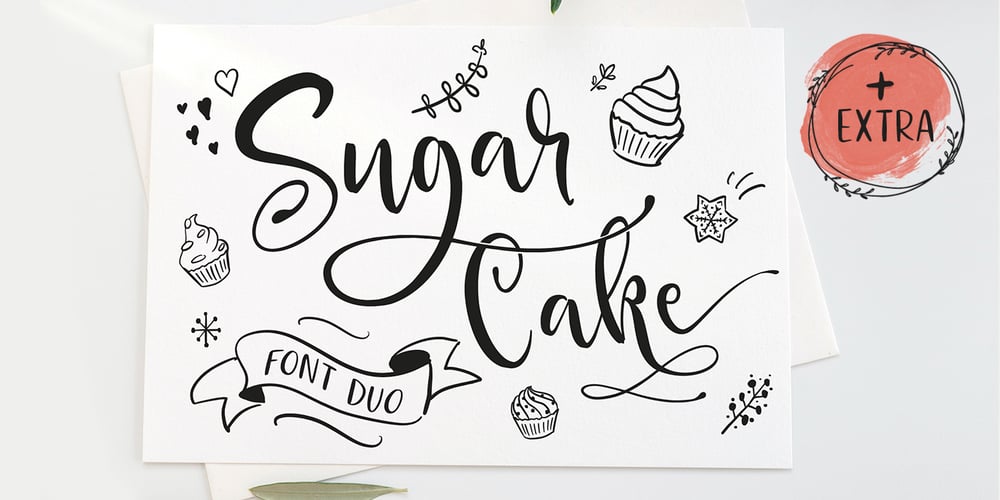
Sugar Cake Font Family was designed by Pavel Larin and published by Larin Type Co. Sugar Cake contains 3 styles and family package options. Sugar Cake this is a stunning handwritten font duo with hand-drawn illustrations. Script font includes many alternates, ligatures and swash with them you can create a more complete composition and make it more diverse and individual. A hand-drawn sans serif font will perfectly match the script and complement it. Also included in this font are hand drawn fancy illustrations that will be useful for design and decorate your project.Enjoy using!